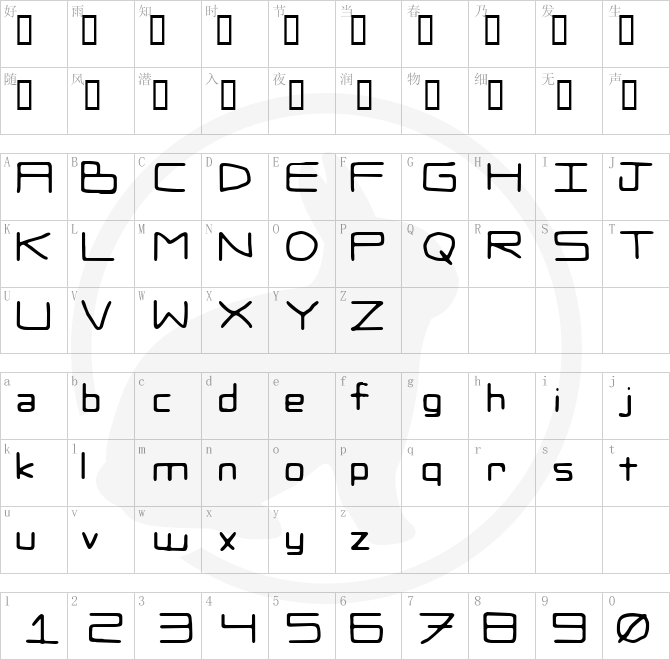
- Font Name:Zaboodla
Zaboodla.ttf is a very beautiful artistic font, Zaboodla.ttf is widely used in the design and printing of various books and pictures,Zaboodla.ttf has a strong visual impact,Zaboodla.ttf is a commonly used font in newspapers, magazines and books, and is used in posters, e-commerce Poster design, store design, logo design, font design and other fields.Zaboodla.